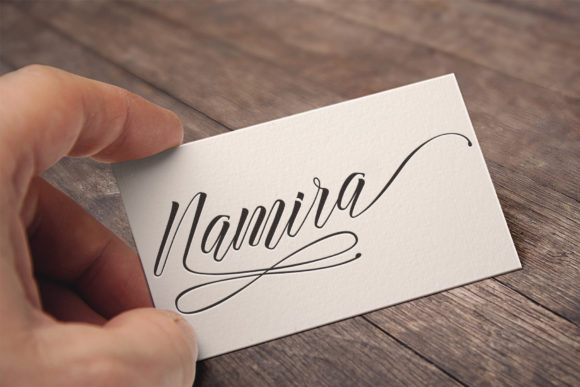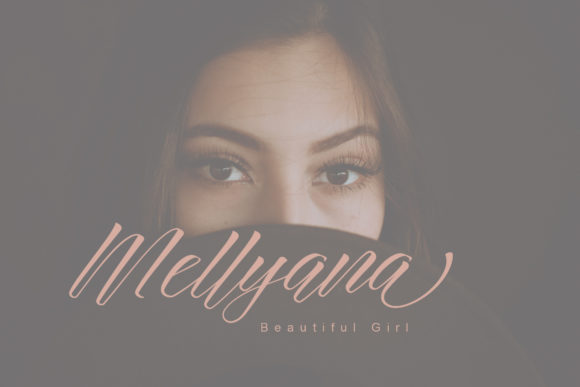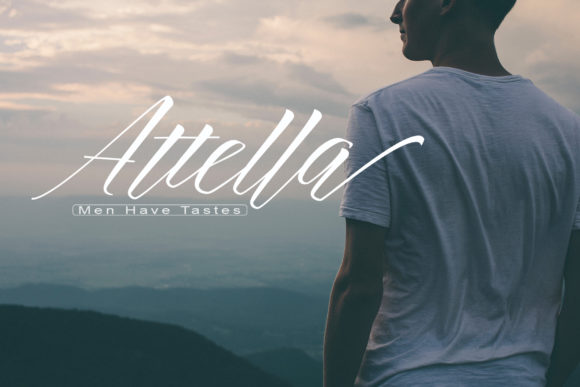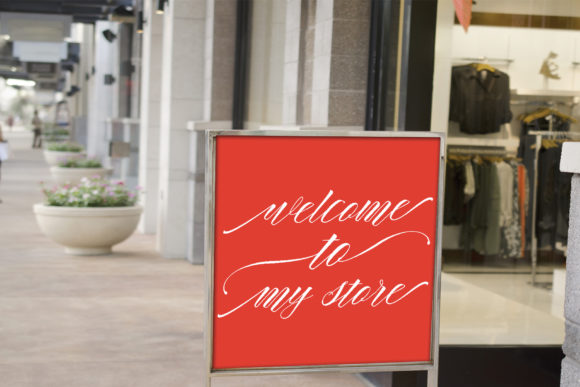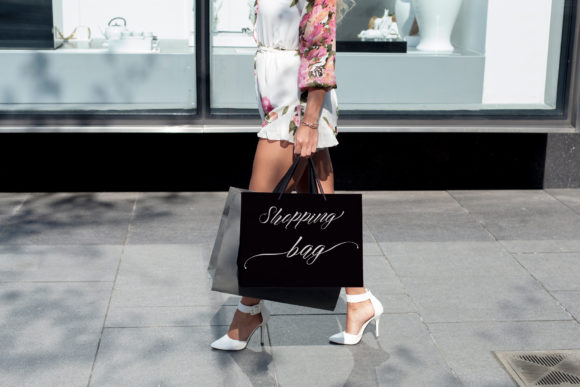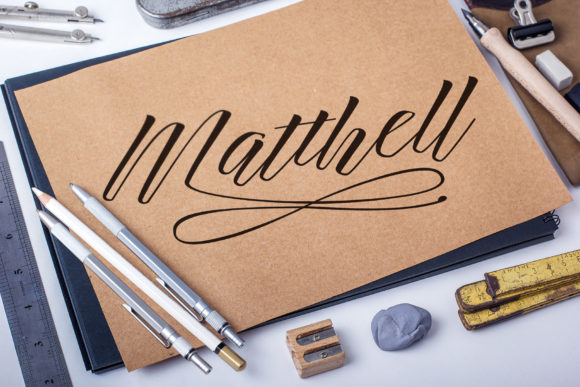
Introduction to Namitha Font Font
Fonts play a crucial role in design, and the Namitha Font font is a typeface that brings both character and versatility to any project. Whether you’re working on a branding project, a website, or a print design, the Namitha Font font offers a unique style that can elevate your work.
Namitha is a cute and casual handwritten font with an incredibly friendly feel.
It features gorgeous swashes and ligatures that make this script incredibly versatile Whether youβre looking for fonts for Instagram or calligraphy scripts for DIY projects, Namitha will turn any creative idea into a true piece of art.
Key Features of Namitha Font Font
Why Choose Namitha Font Font?
The Namitha Font font is more than just a typeface β it’s a design tool that helps you communicate your message with style and clarity. Its unique character set and versatile design make it suitable for a wide range of applications, from elegant invitations to bold headlines.
With its carefully crafted letterforms and balanced proportions, the Namitha Font font ensures readability and visual appeal across all mediums.
What makes Namitha Font font special?
The Namitha Font font stands out with its unique design, exceptional readability, and versatility across various design applications.